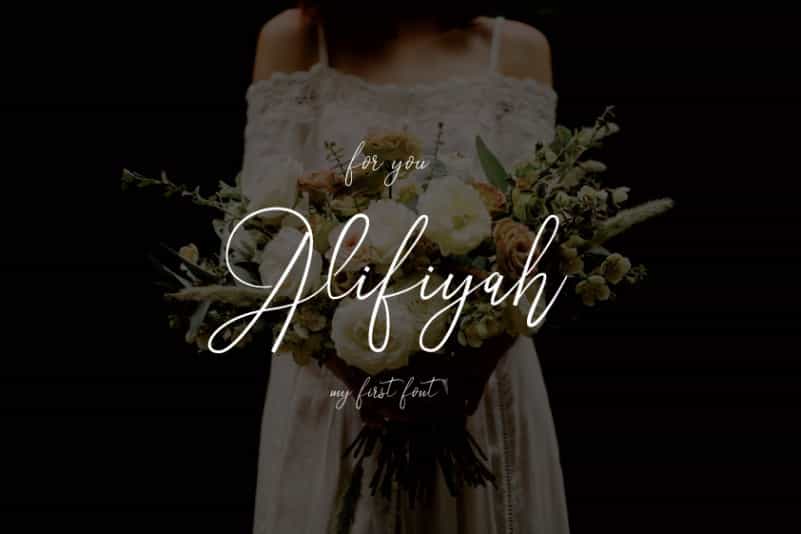
Alifiyah is a modern and fresh handwriting font with a stylish handwritten style that makes it look natural, classy and perfect for any awesome projects which require the taste of handwriting.